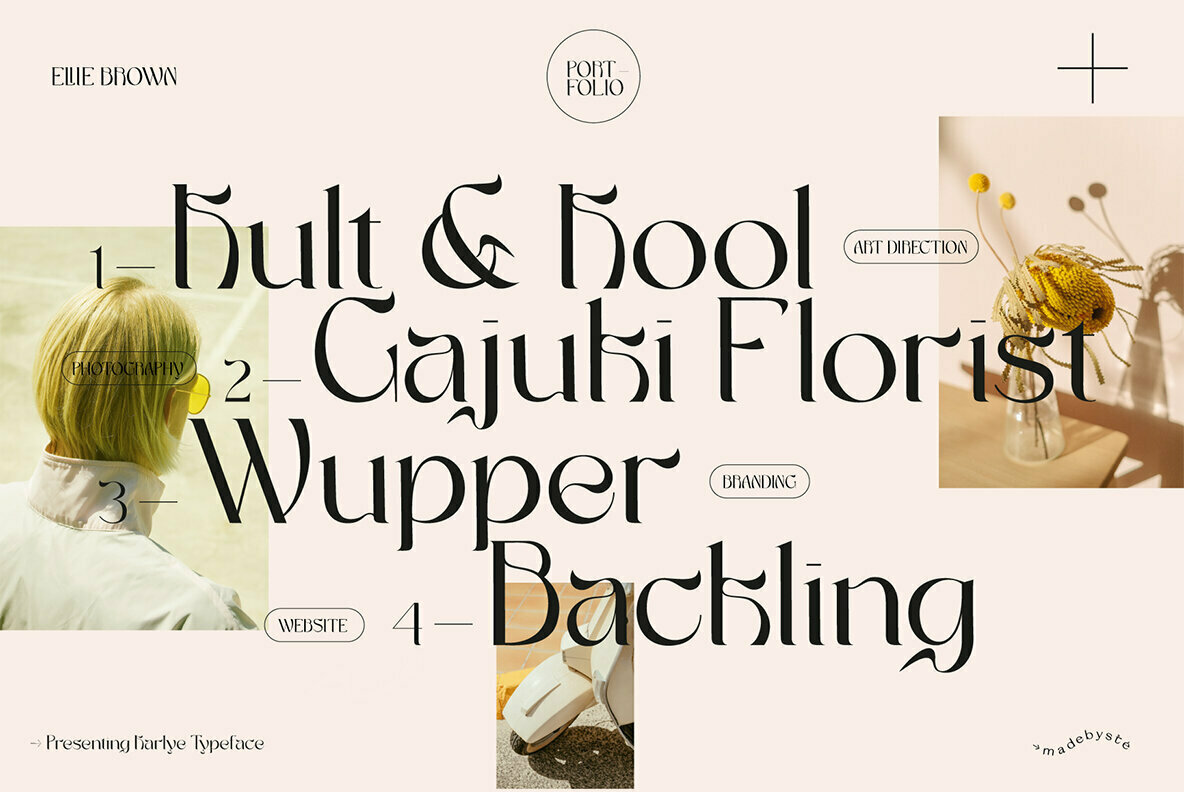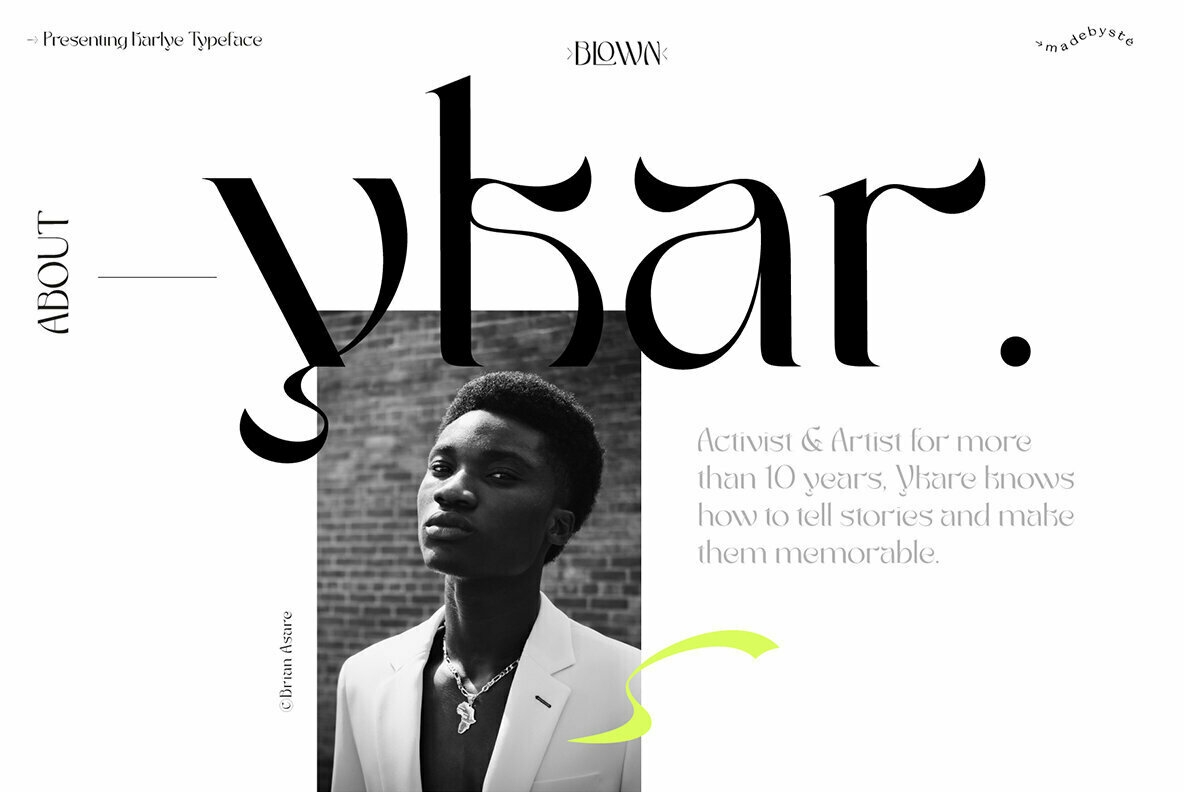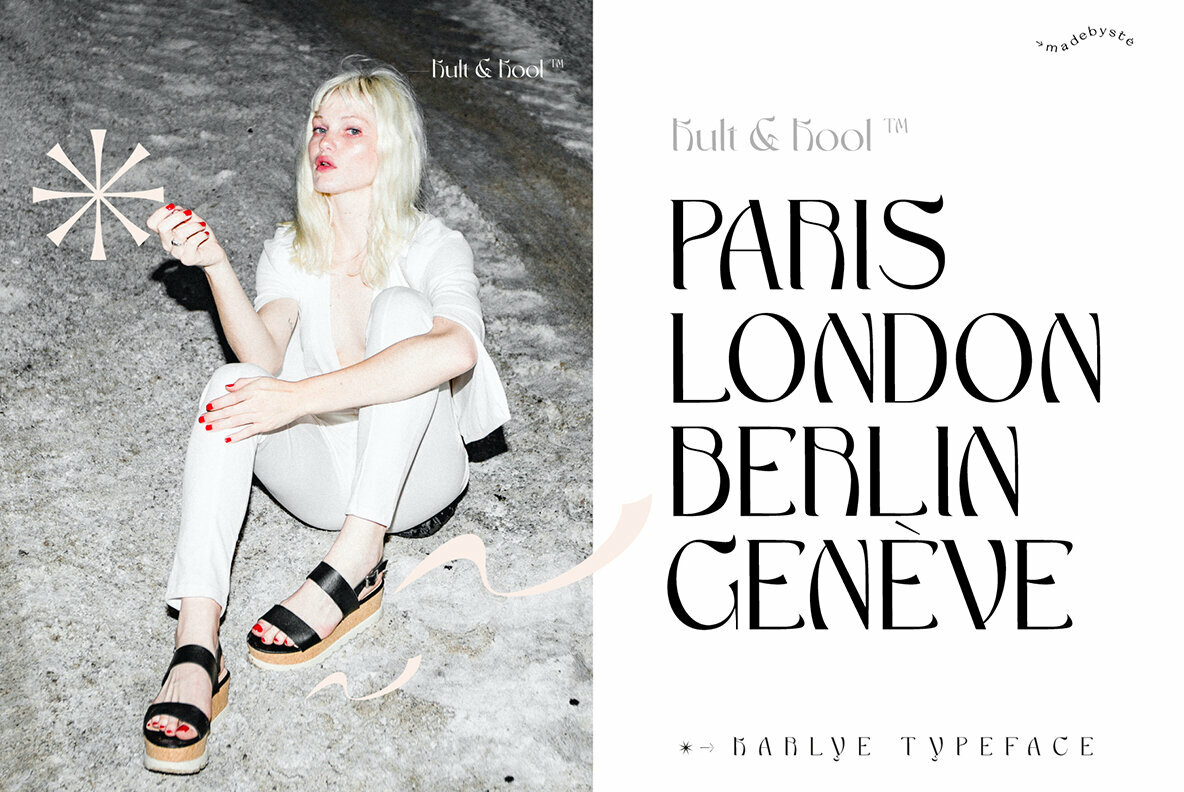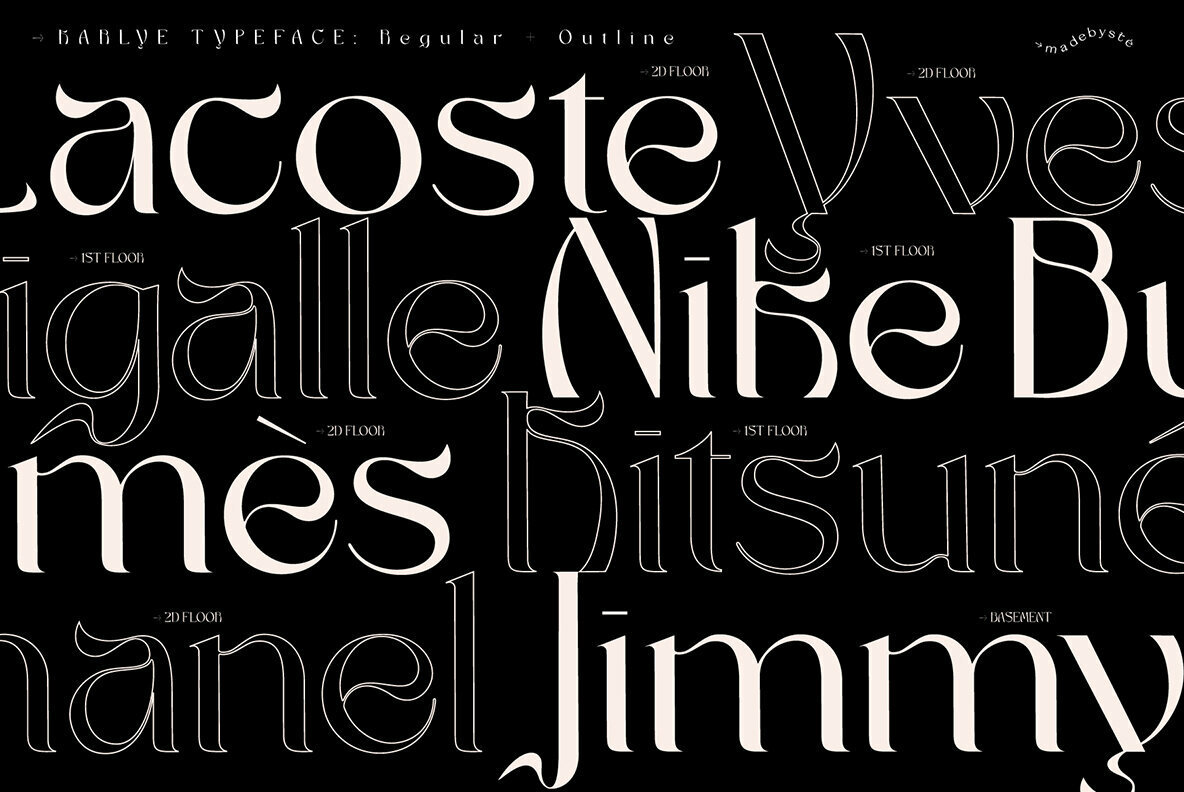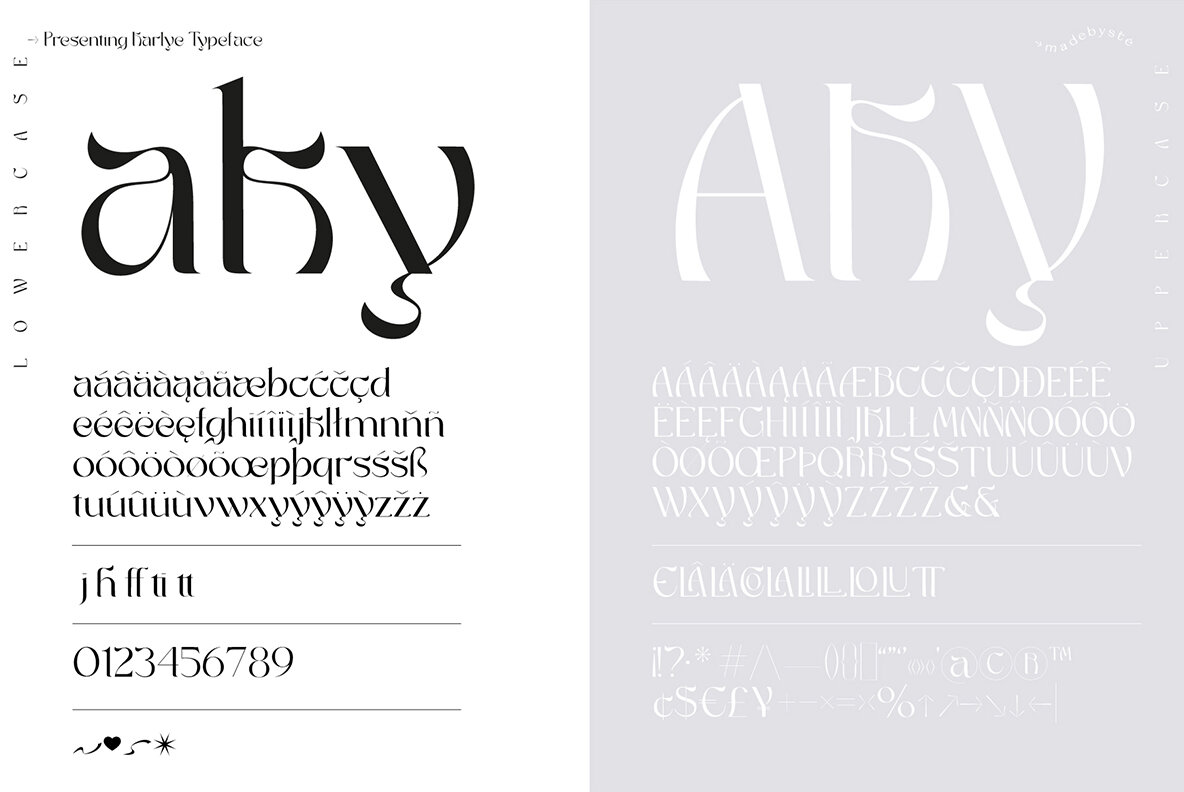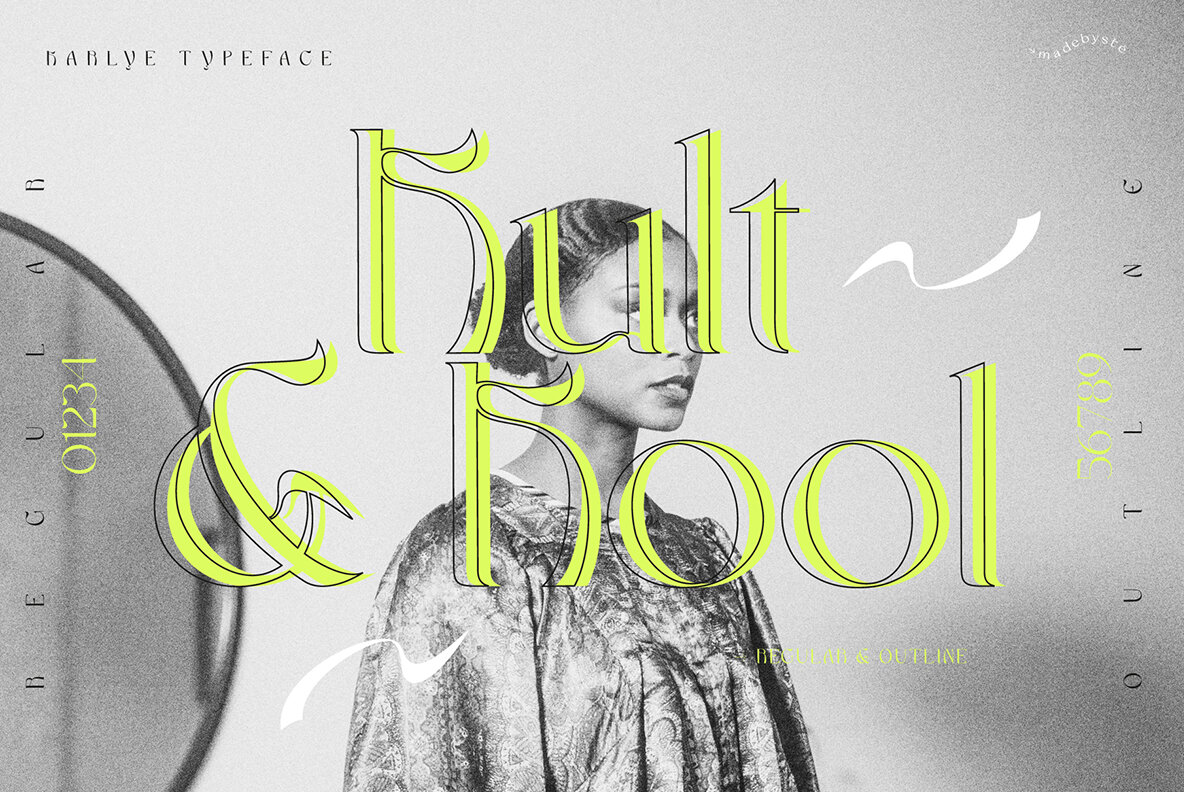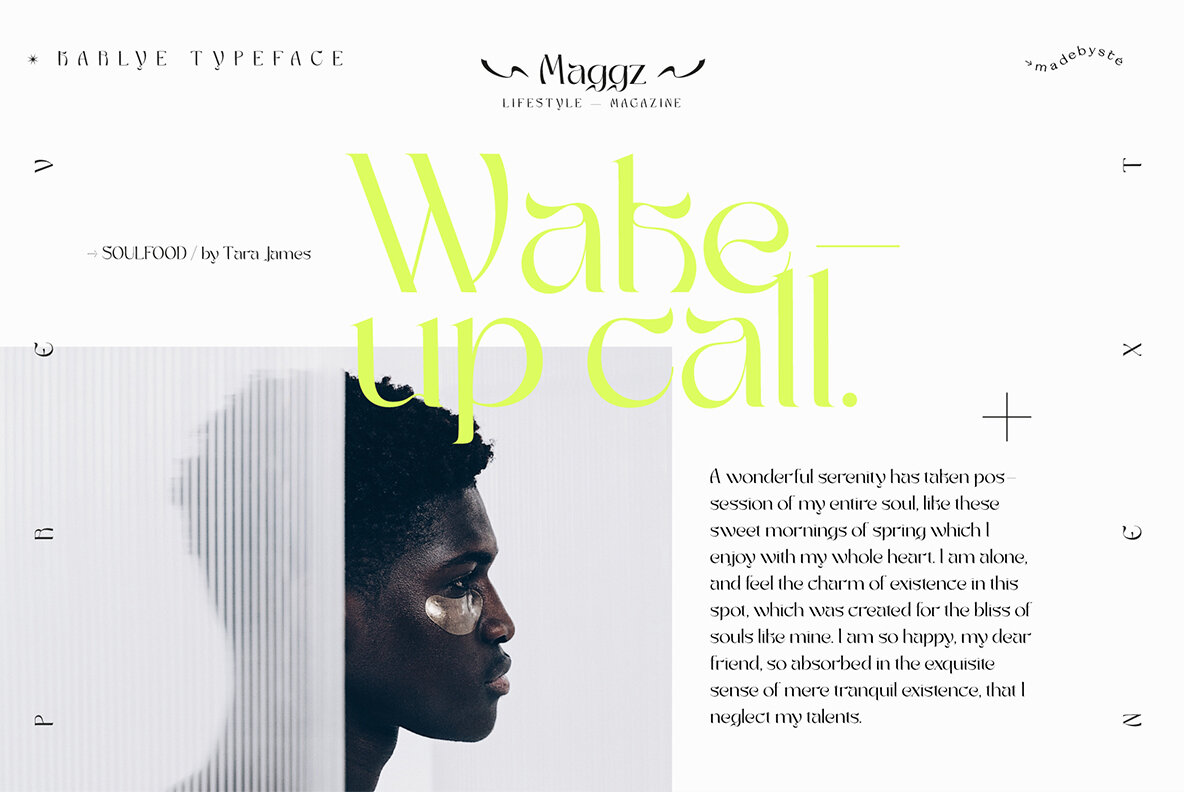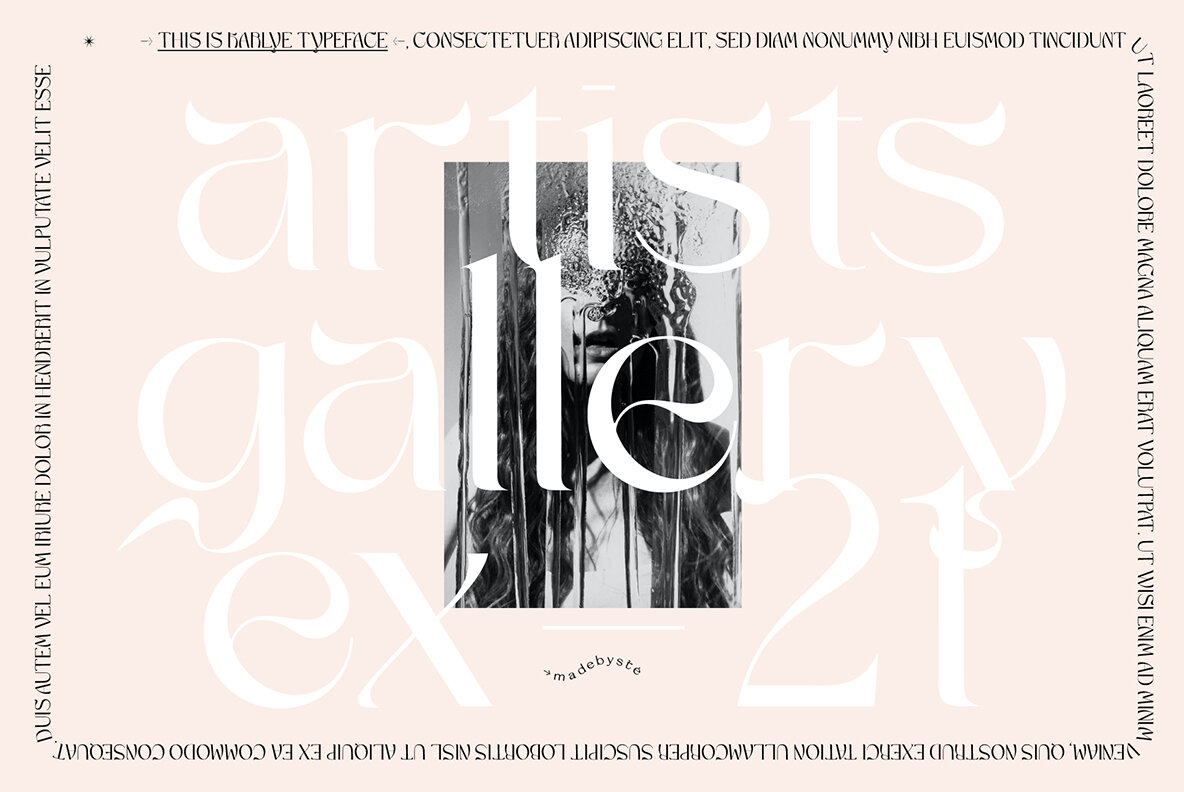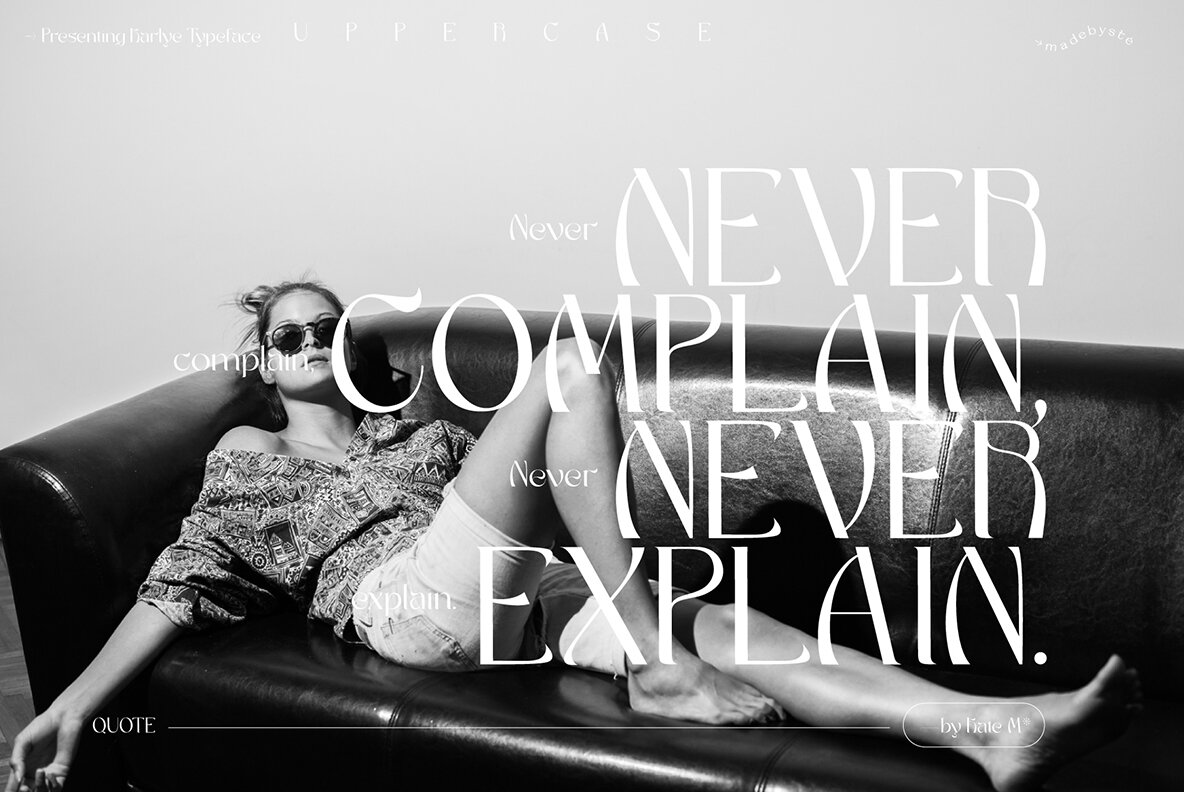
Karlye Font
Karlye is a modern and stylish font coming in Regular and Outline. Combine both of them to create original designs. This font is perfect for editorial, web design, logo design and packaging.